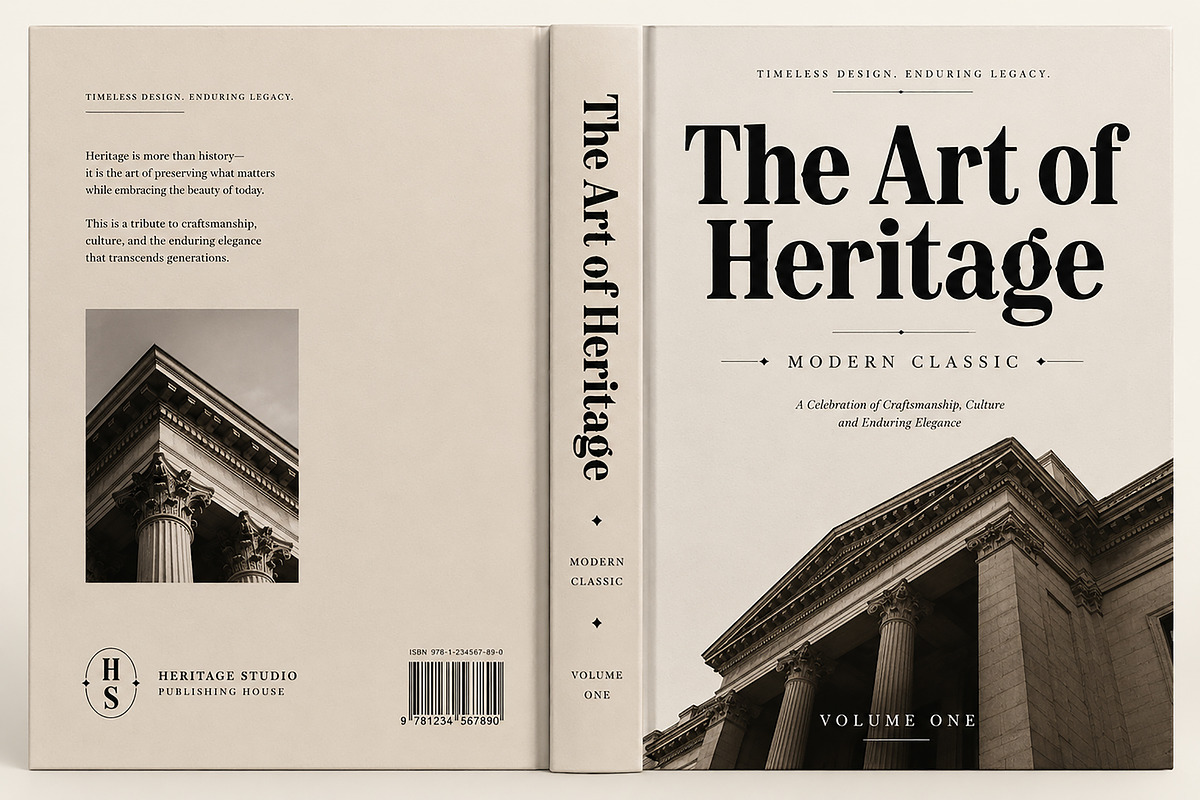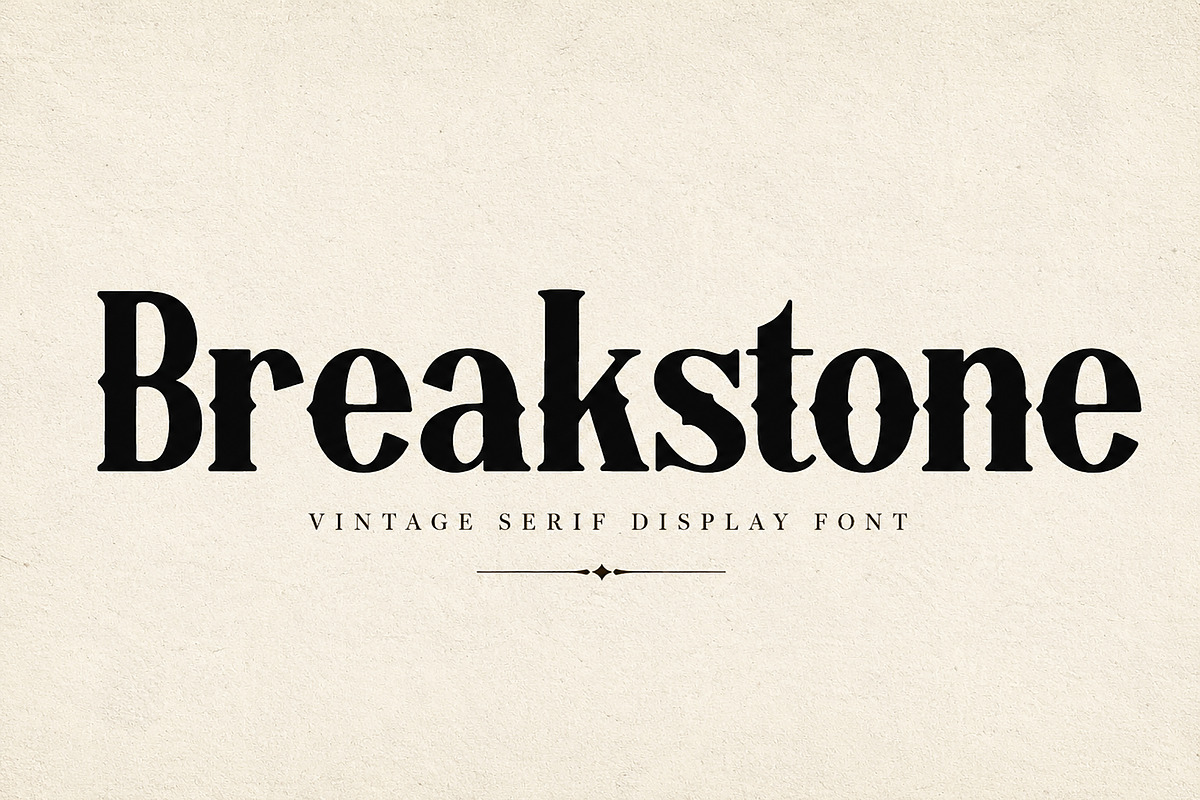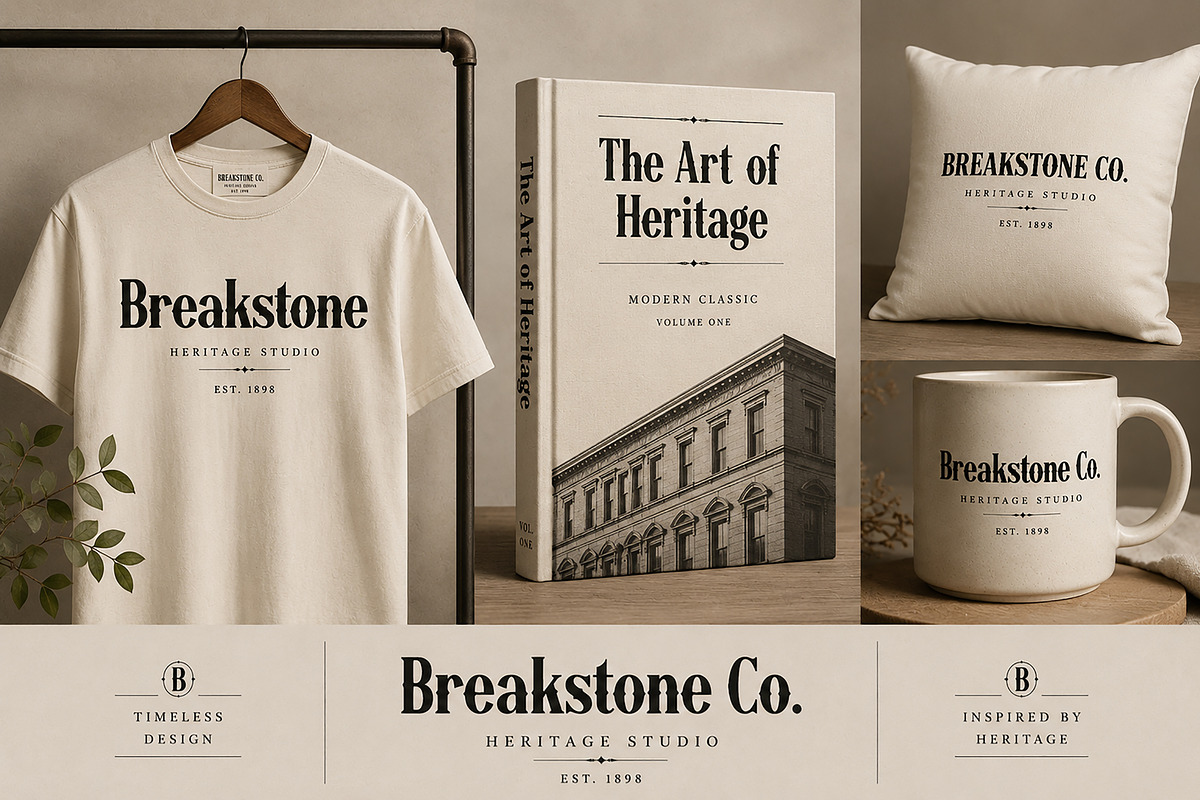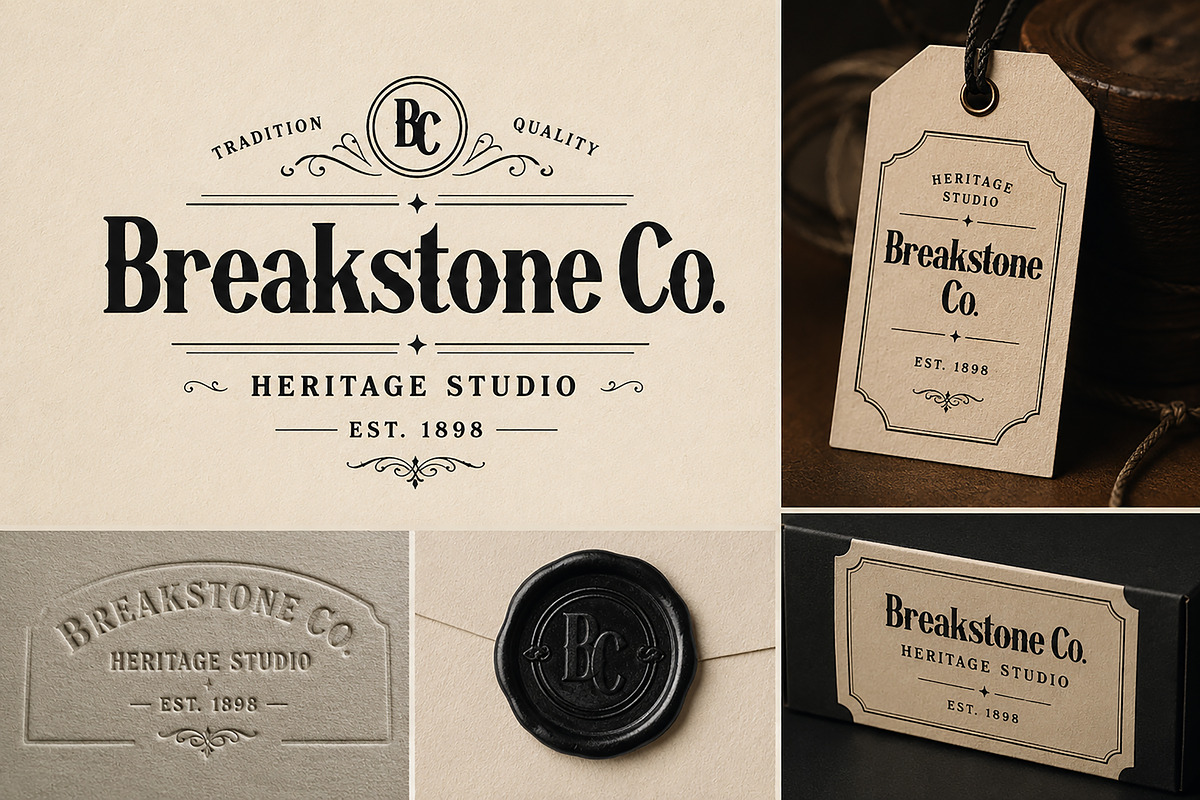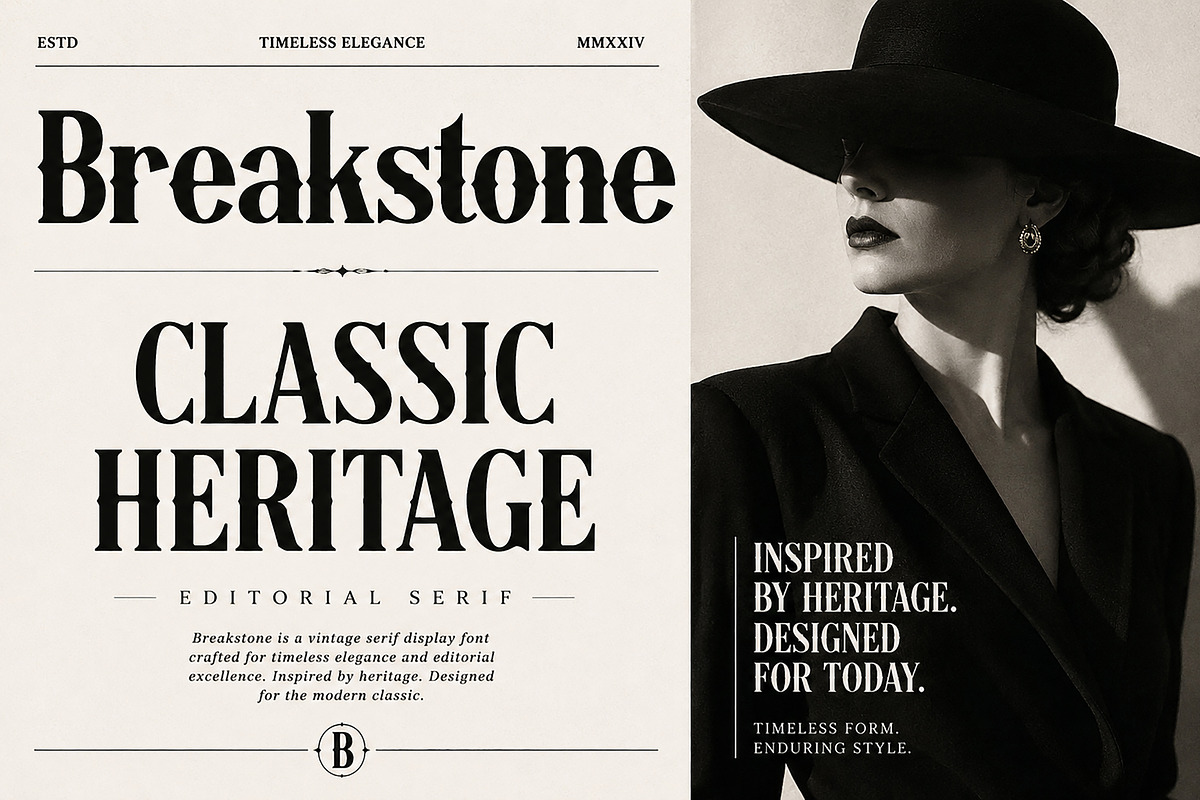
Breakstone
Breakstone – Vintage Serif Display Font
Introducing Breakstone, a bold and timeless vintage serif display font crafted to bring elegance, heritage, and character to your creative projects. Inspired by classic editorial typography, vintage book covers, luxury branding, and traditional print design, Breakstone combines strong serif details with refined proportions to create a sophisticated visual presence.
Perfect for designers who want to add a touch of heritage and premium craftsmanship, Breakstone works beautifully in logos, branding, packaging, magazine layouts, book covers, fashion editorials, advertisements, labels, posters, signage, and social media graphics.
Its bold letterforms and distinctive vintage personality make every headline stand out while maintaining excellent readability and classic charm.
Luxury Branding
Vintage Logos
Editorial Design
Magazine Covers
Fashion Branding
Restaurant & Café Branding
Heritage & Classic Projects
Posters & Advertising
Labels & Product Packaging
Uppercase & Lowercase Characters
Stylish Vintage Serif Design
Create timeless designs with the elegance of classic typography using Breakstone.